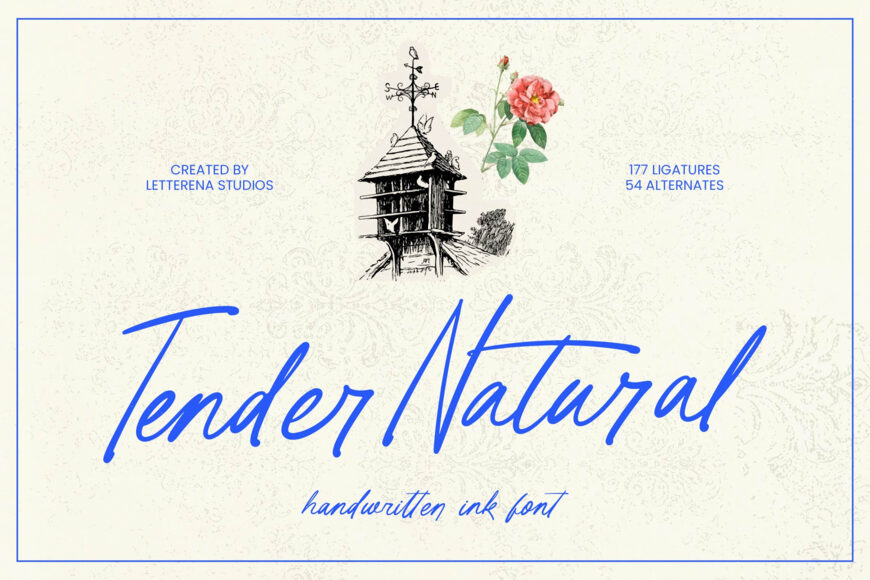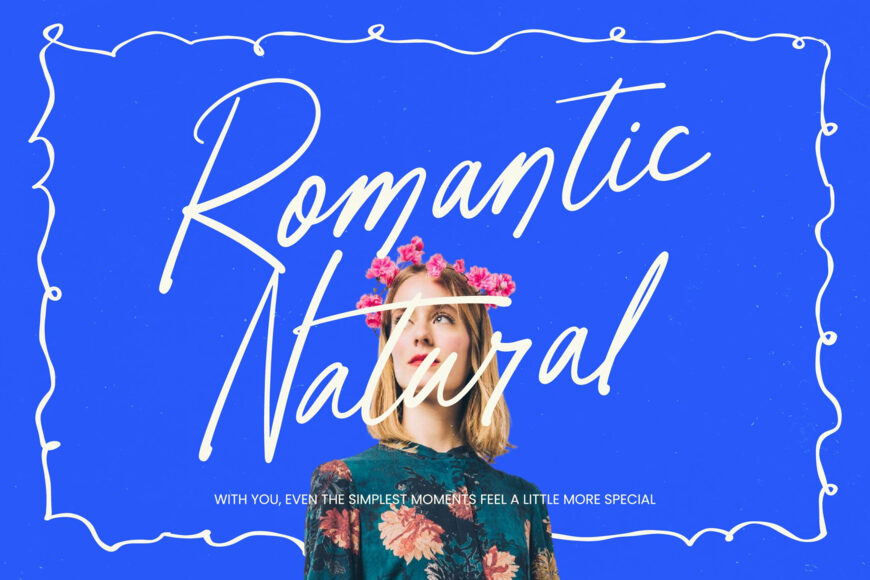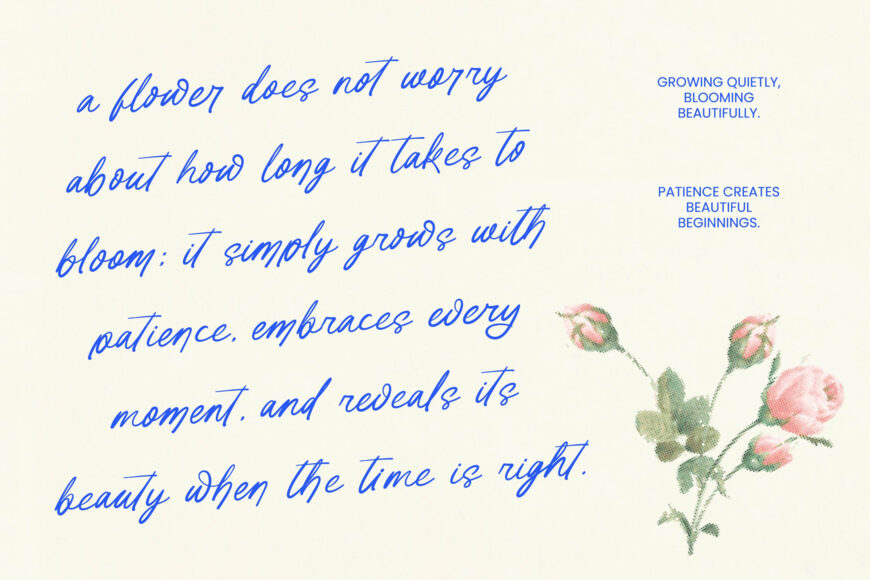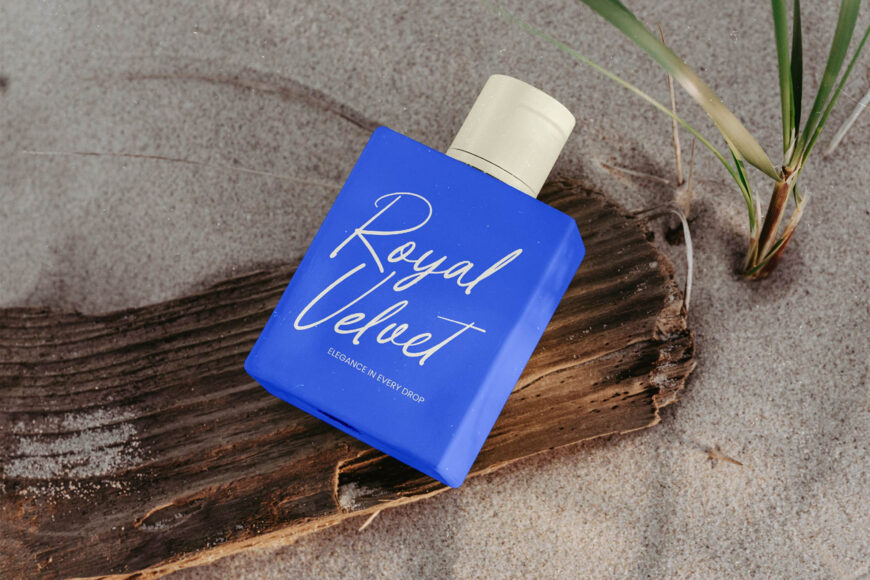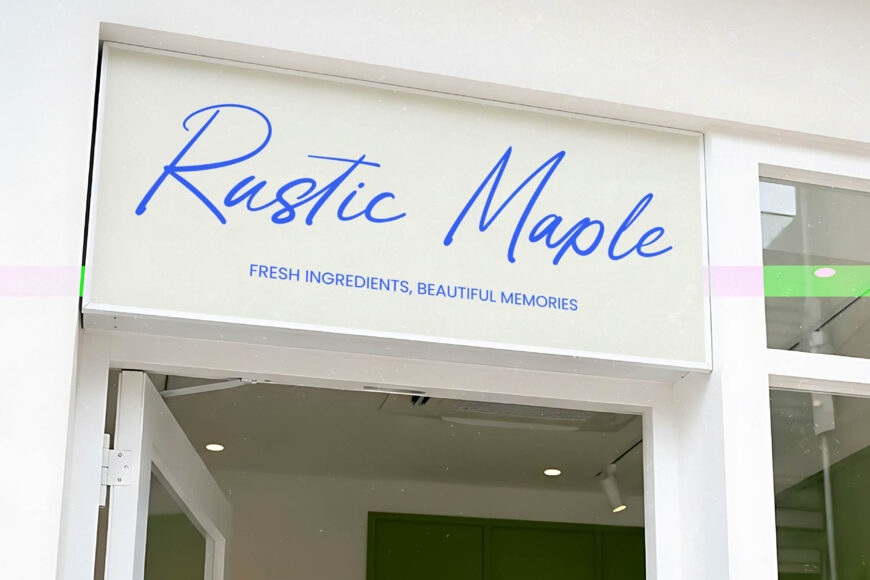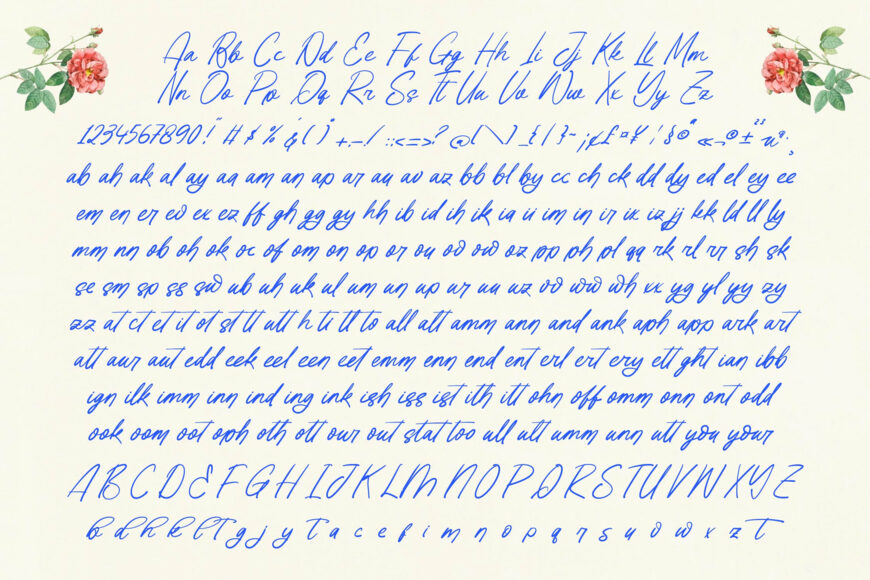
Add an authentic handcrafted feel to your designs with Tender Natural, a handwritten ink font inspired by the organic beauty of real ink on paper. With 177 ligatures and 54 alternates, it creates fluid, natural variations for a distinctive visual identity.
Ideal for luxury branding, premium packaging, editorial layouts, wedding stationery, logos, and lifestyle photography, Tender Natural balances elegance with approachability.